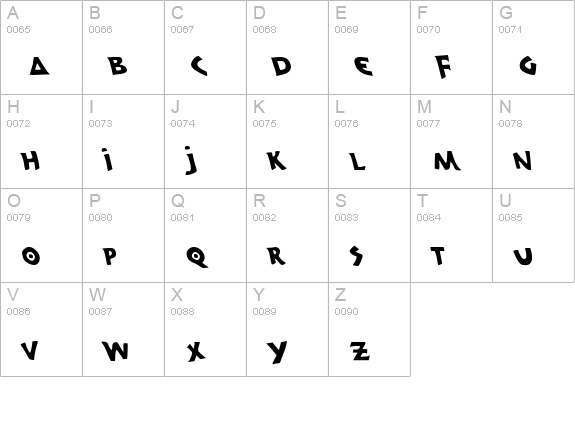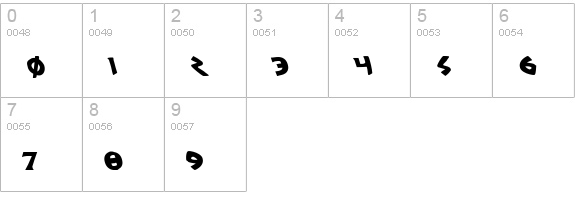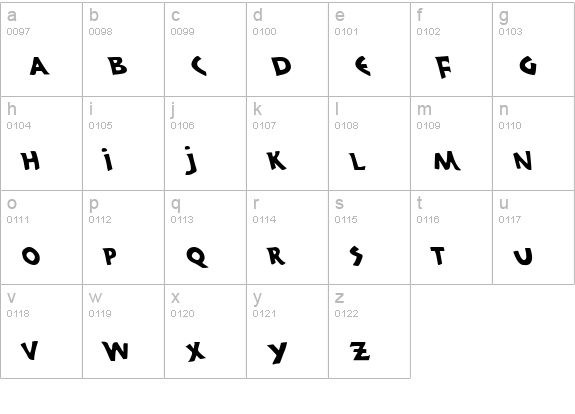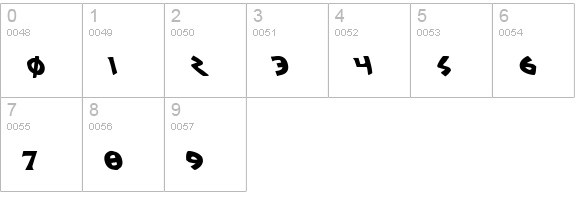
Introducing the exquisite 300 Trojans Leftalic font, a stunning addition to any designer's toolkit. This font exudes elegance and sophistication with its sleek, slanted letterforms that command attention and convey a sense of modernity. Perfect for adding a touch of class to your projects, whether it be for branding, packaging, or editorial design. What's even better is that the 300 Trojans Leftalic font is available for free download at FontsMarket.com. This means you can elevate your designs without breaking the bank, making it a must-have for any creative professional looking to make a statement. Don't miss out on this opportunity to enhance your work with this beautiful and versatile typeface. Download it now and let your creativity shine!